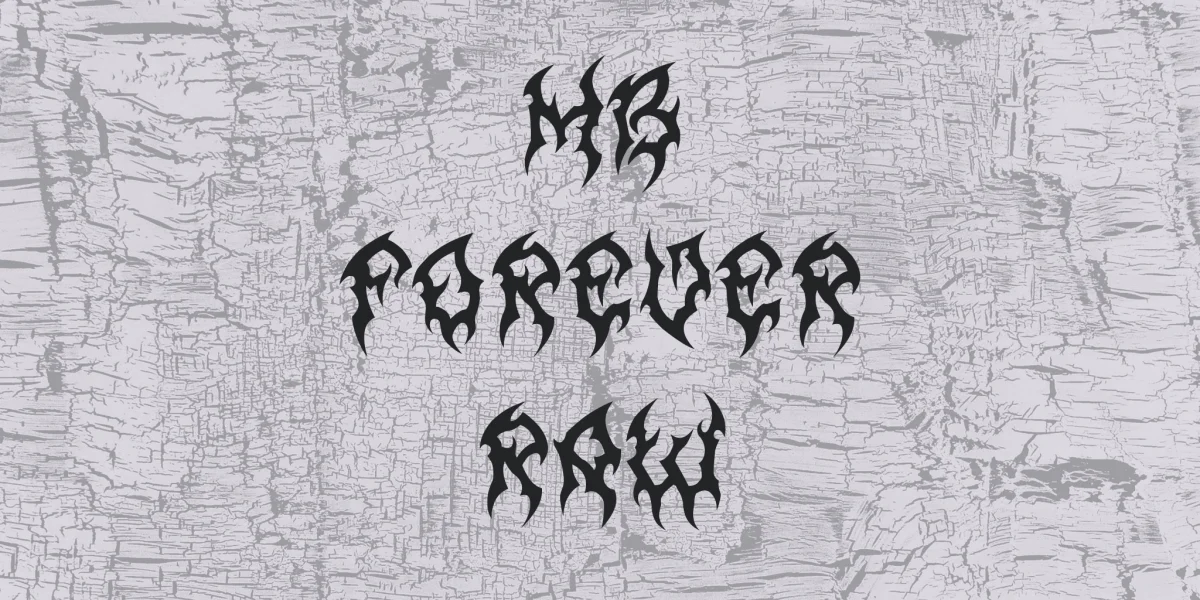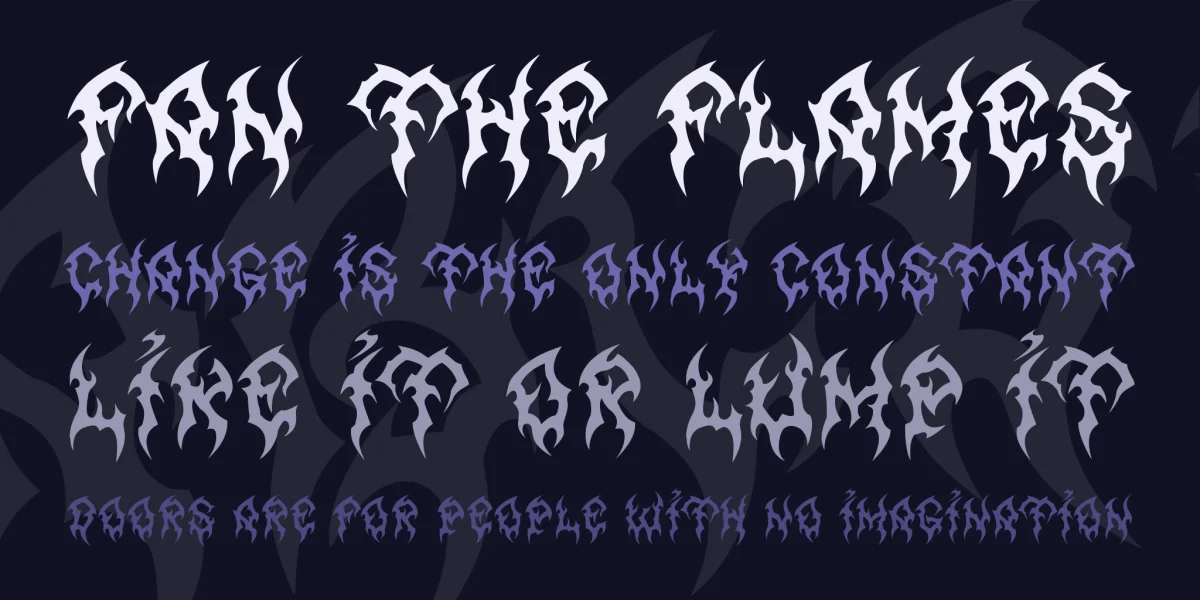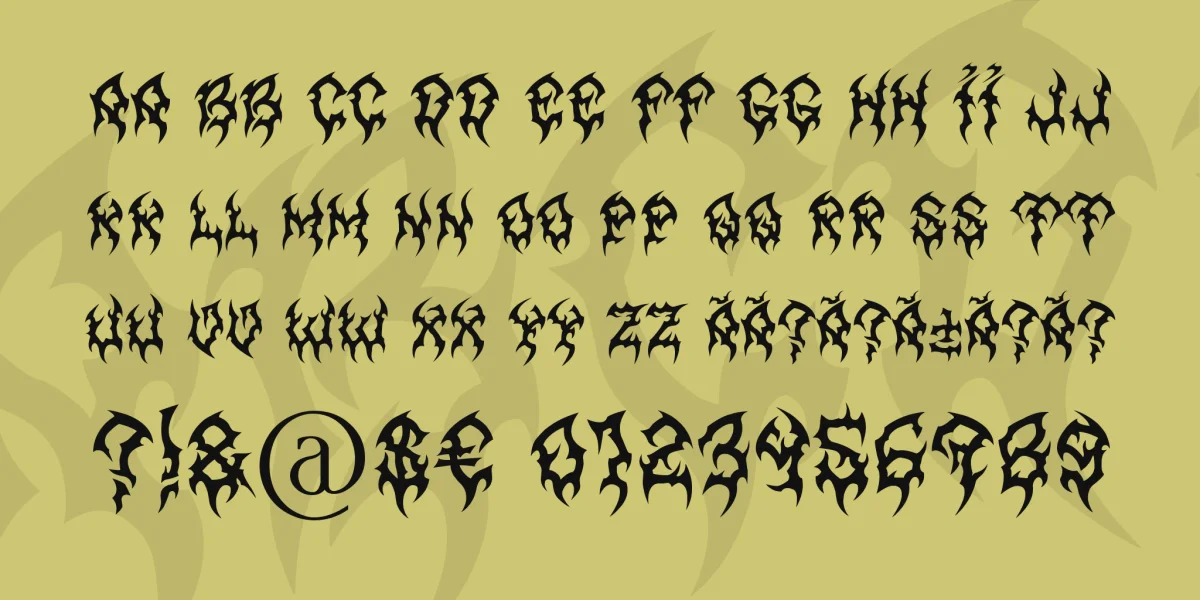
MB Forever Raw - Horror, Metalhead Font by ModBlackmoon. [Hand-drawing + Photoshop] This font it something like a conclusion of what I've done before in my Arcane, Gothic Dawn and Graveyard Designs fonts, so that's why it's free. That's some kind of next level of this style - with higher quality, smooth curves... Enjoy. Free for personal and commercial use. No modify. Don't claim it as your own. For more fonts visit modblackmoon.narod.ru/fonts.html